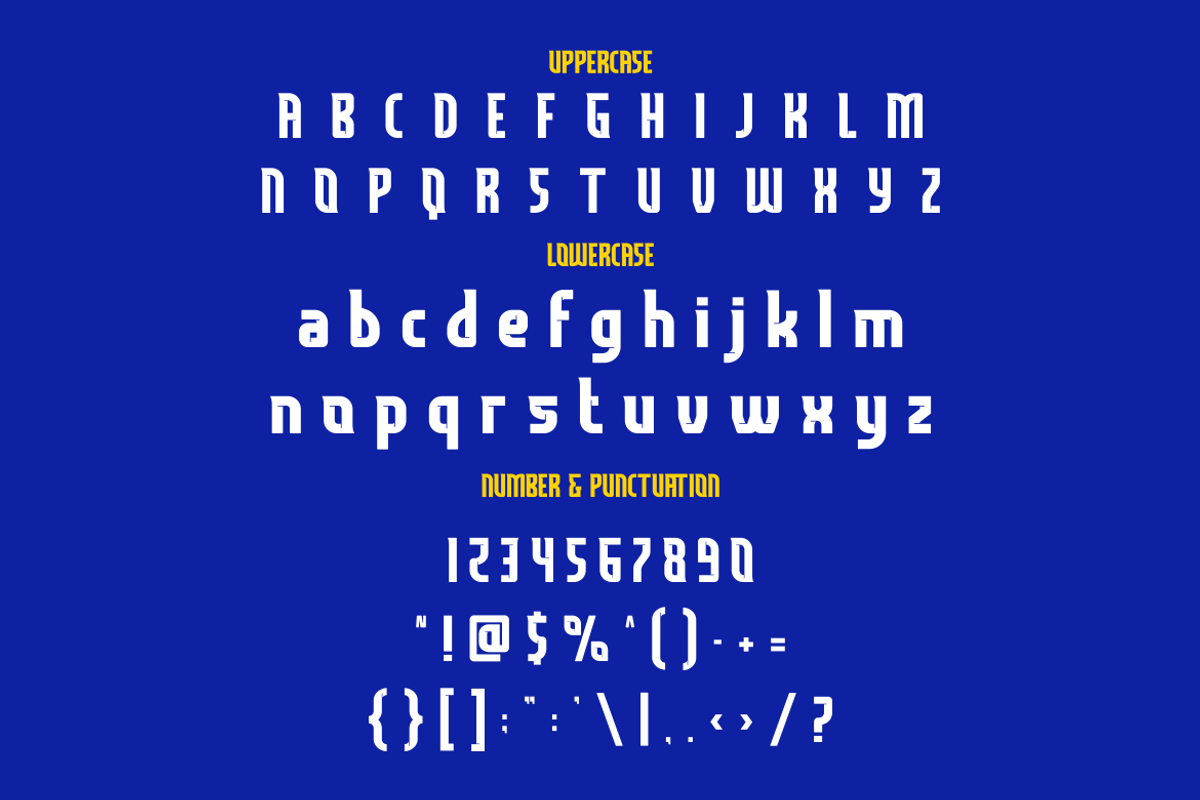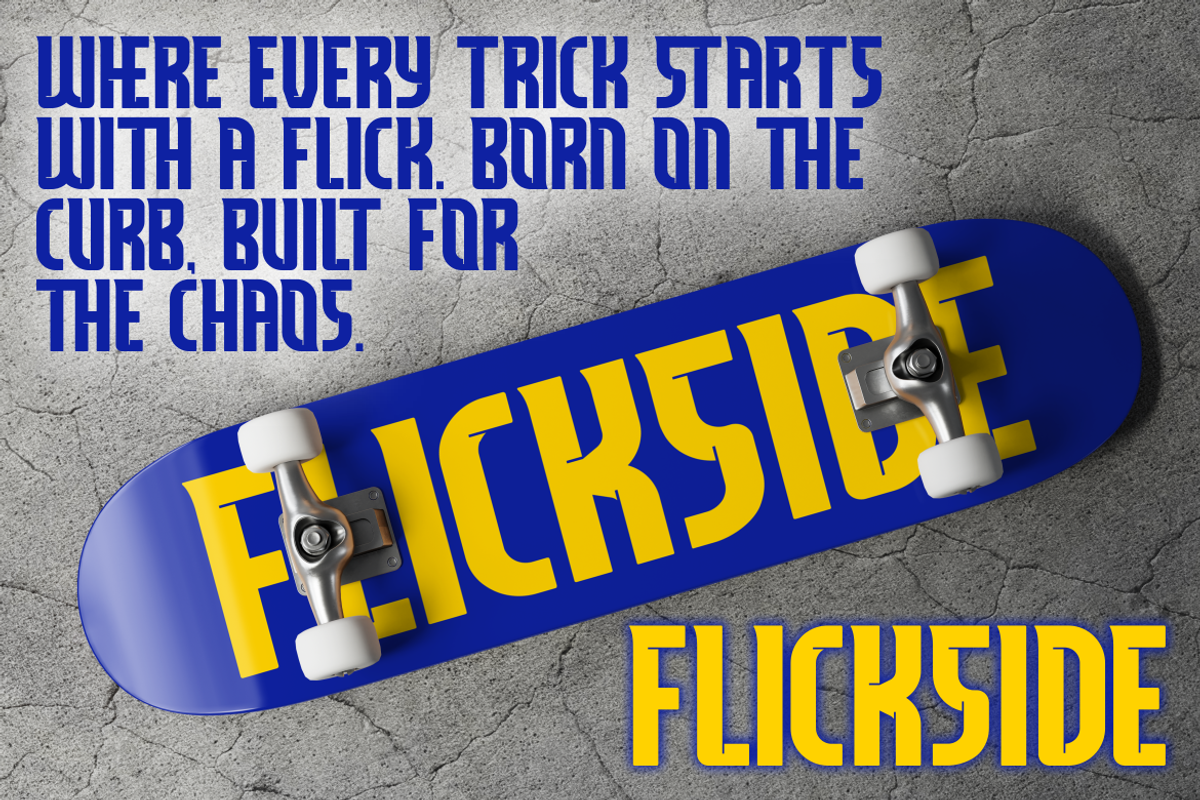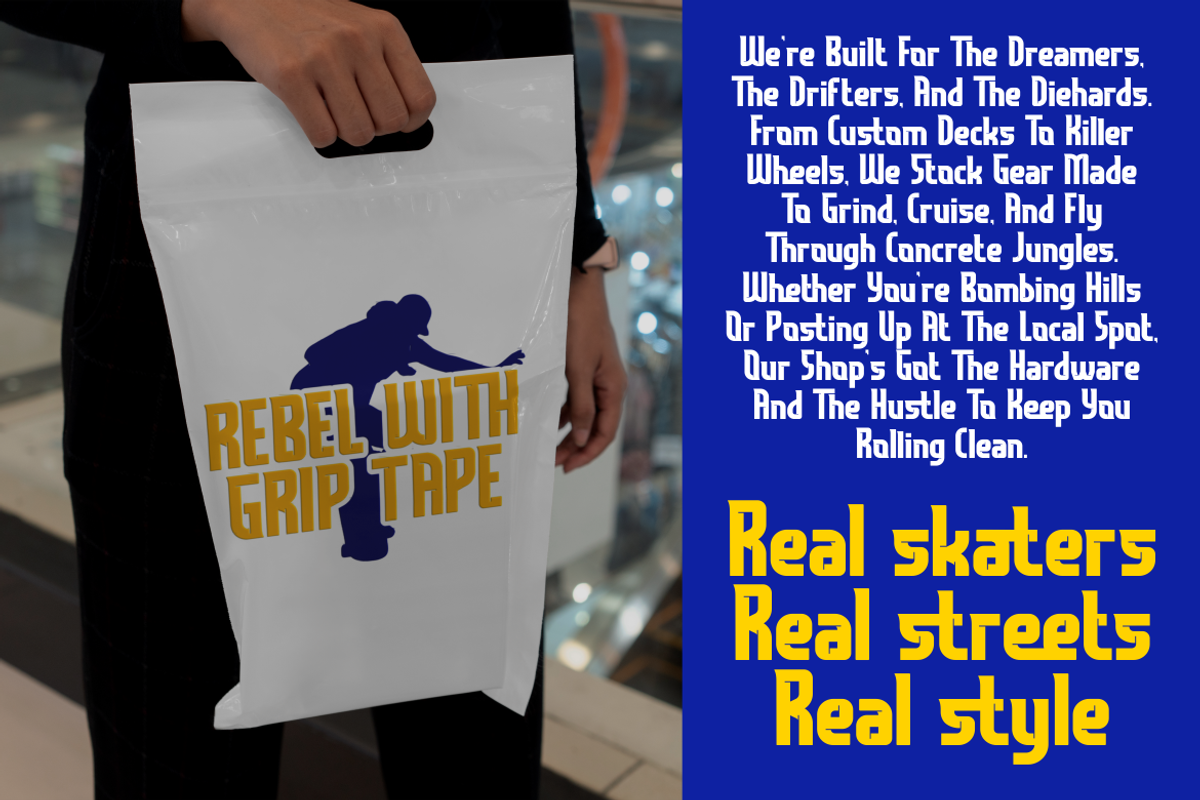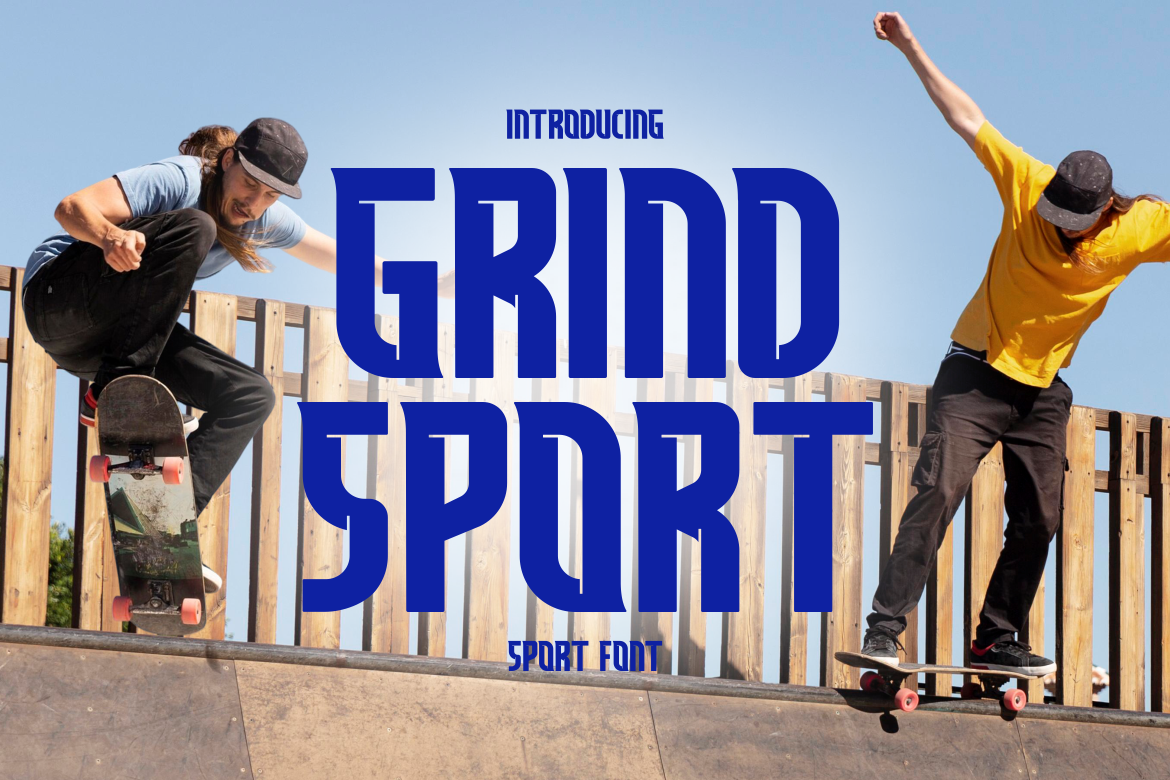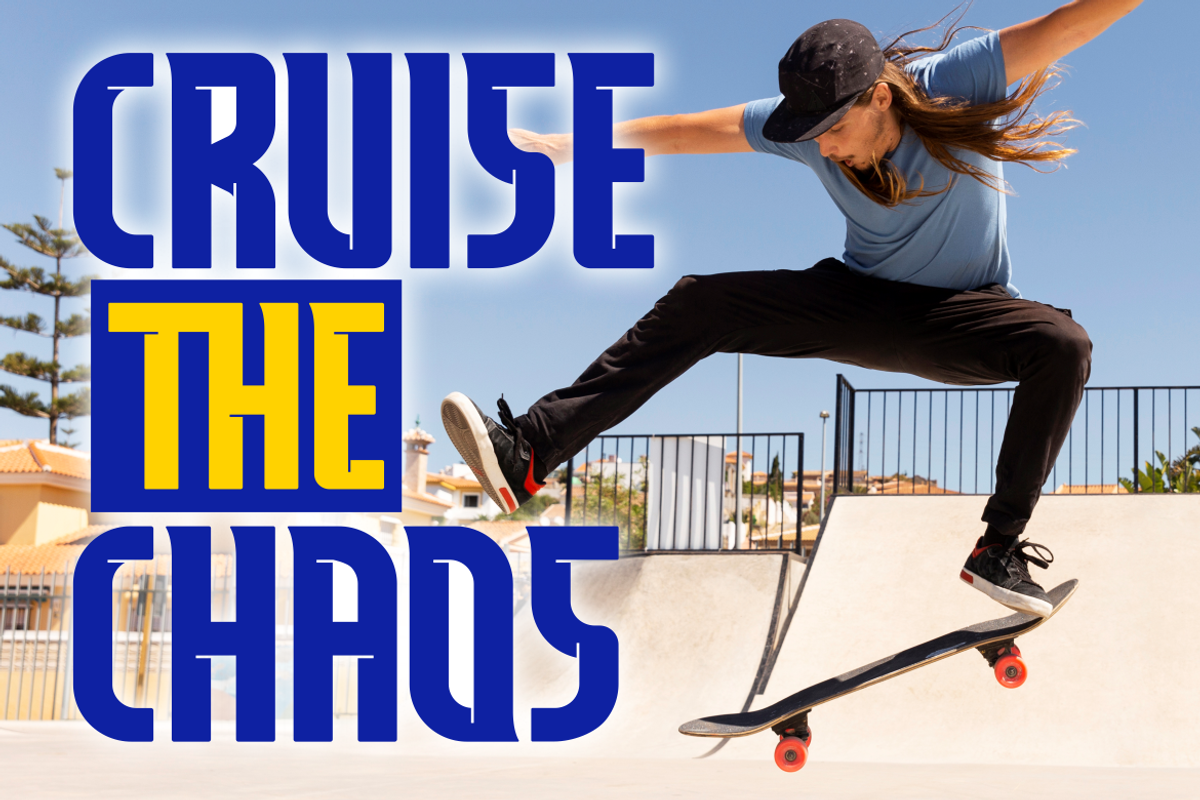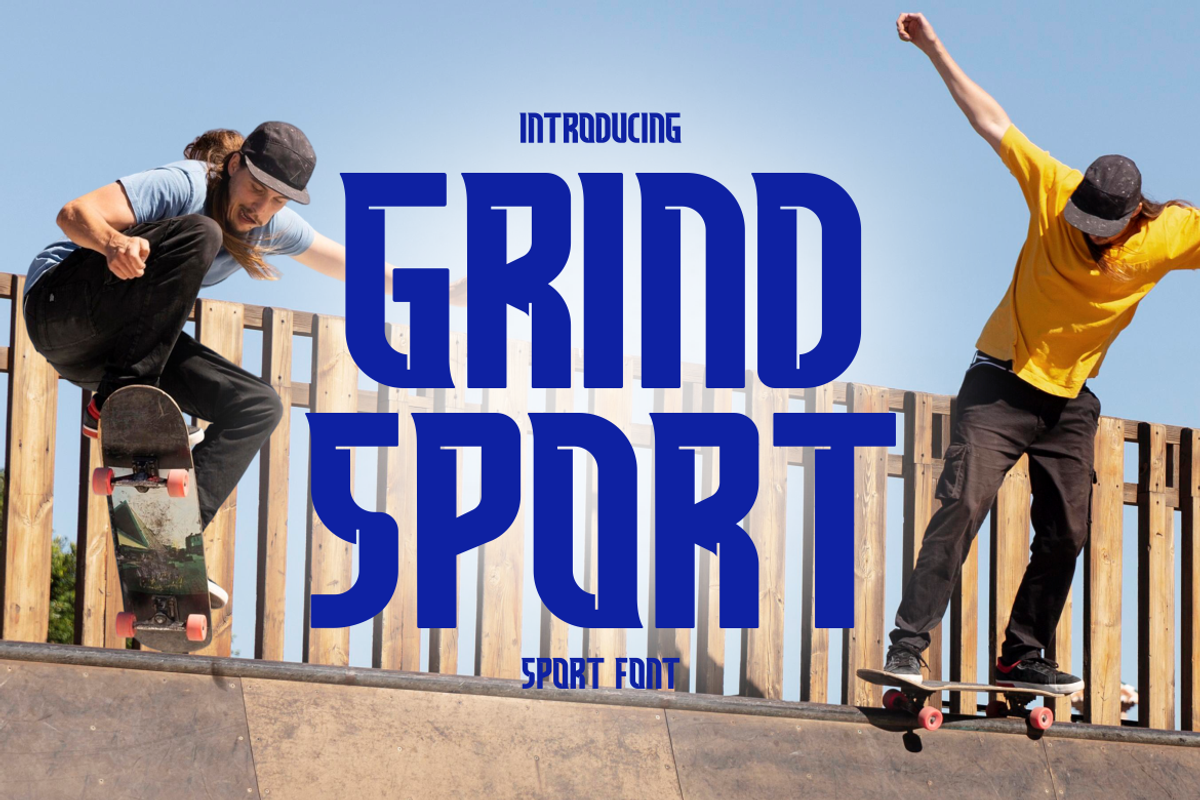
Grind Sport - Display Sport Font
Grind Sport is a dynamic and adrenaline-charged display font engineered for movement, energy, and attitude. This bold typeface commands attention with its condensed letterforms, sharp verticals, and minimal curves—channeling the raw energy of skateparks, street leagues, and underground sport subcultures. Each glyph is meticulously designed to deliver an urban edge while retaining optimal legibility, making it ideal for high-impact visuals. Whether emblazoned across skateboards, apparel, or event posters, Grind Sport packs the punch needed to dominate both physical and digital arenas.
This font thrives in projects where action and presence matter. Perfect for logo designs, branding for extreme sports gear, esports teams, and youth-driven fashion labels, Grind Sport also excels on packaging, editorial headlines, game UI, and promotional merchandise. Its strong typographic rhythm and vertical structure lend themselves well to contemporary layouts where bold titles are paramount. With multilingual support and a complete character set, Grind Sport is ready to grind through global campaigns with style and precision.